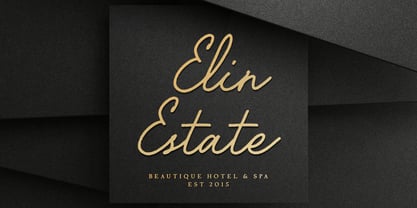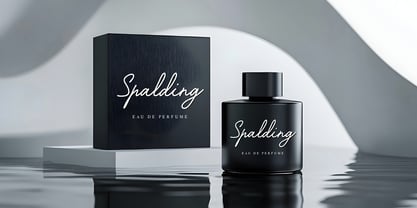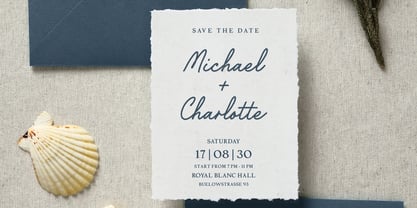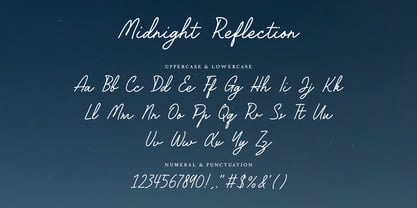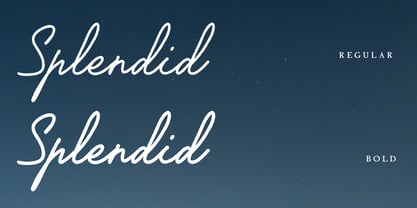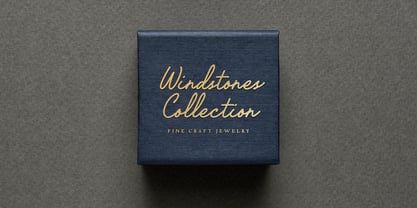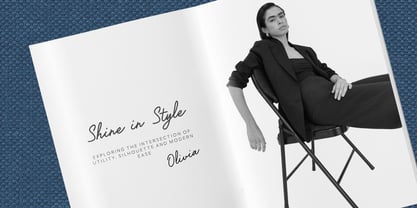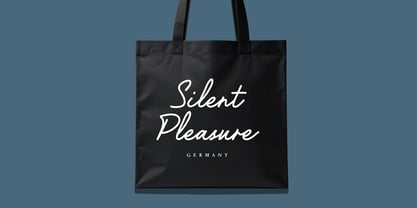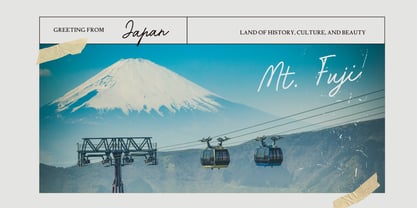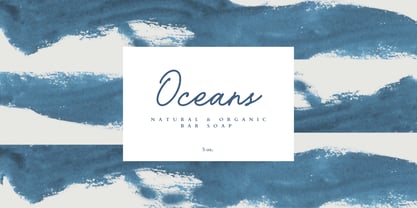
Midnight Reflection
von Fikryal
Die Schriftfamilie Midnight Reflection wurde von Muhammad Fikry entworfen und von Fikryal veröffentlicht. Midnight Reflection enthält 2 Stile und Familienpaketoptionen. Mehr über diese Familie
Midnight Reflection is a casual script font characterized by natural brush strokes and a vintage handwritten style.
Designed to be expressive and authentic, this font beautifully captures the essence of organic hand lettering with its relaxed and stylish flow.
Available in Regular and Bold weights, it is perfect for a variety of applications including branding, logos, packaging, apparel, social media, posters, invitations, and numerous other creative projects. Its handcrafted appearance imparts a warm, personal, and nostalgic feel to designs.
The combination of natural movement, brush texture, and vintage inspiration makes this font an excellent choice for designers seeking a script typeface with a strong personality and artistic charm.